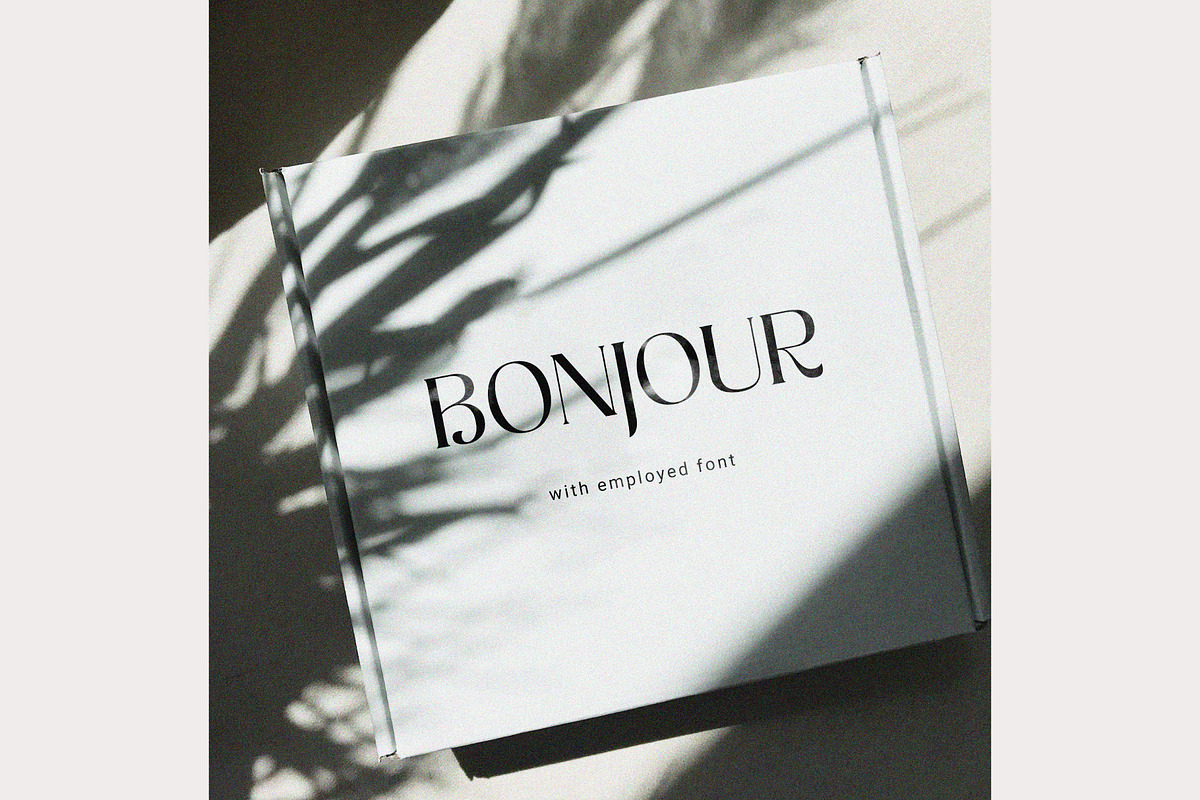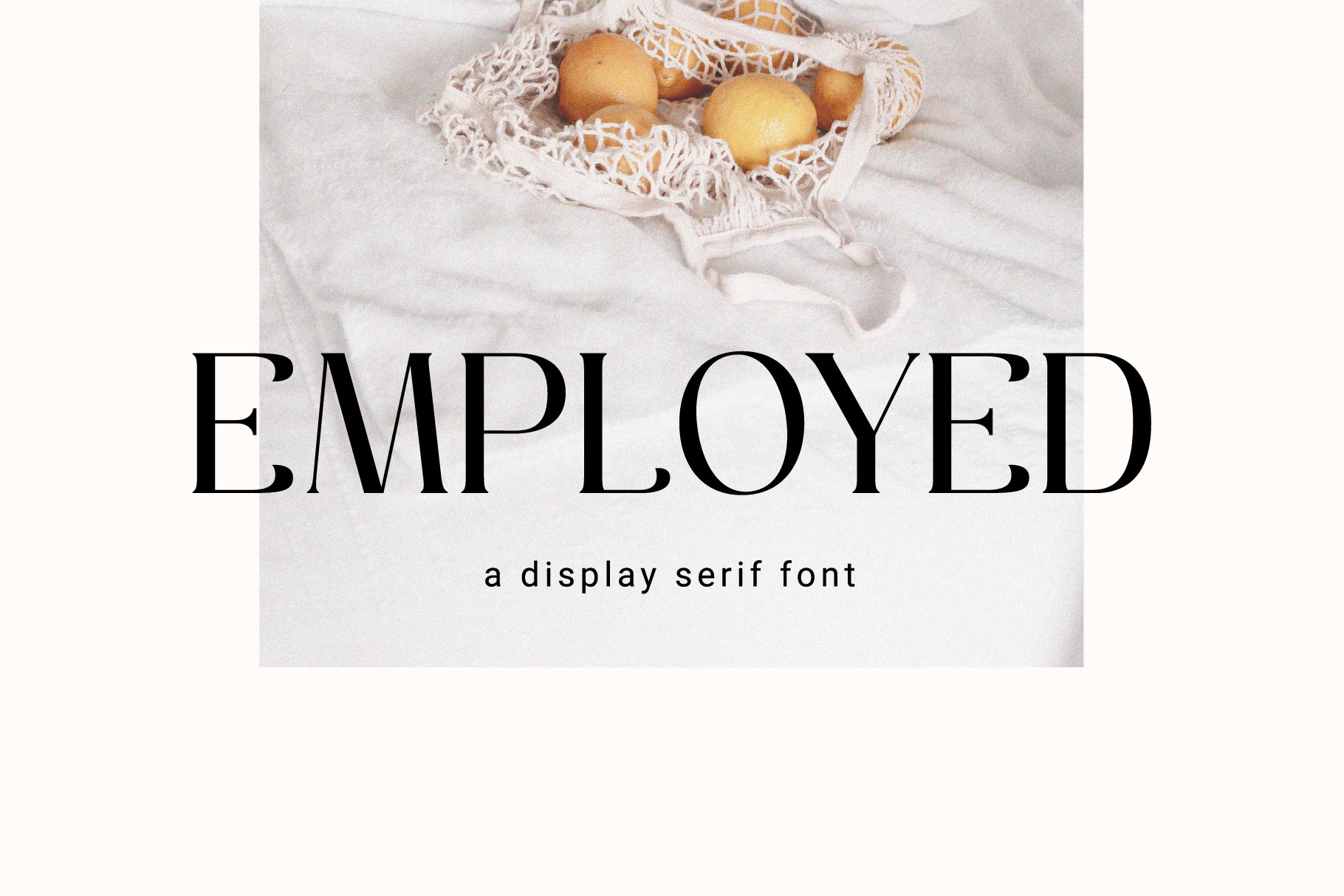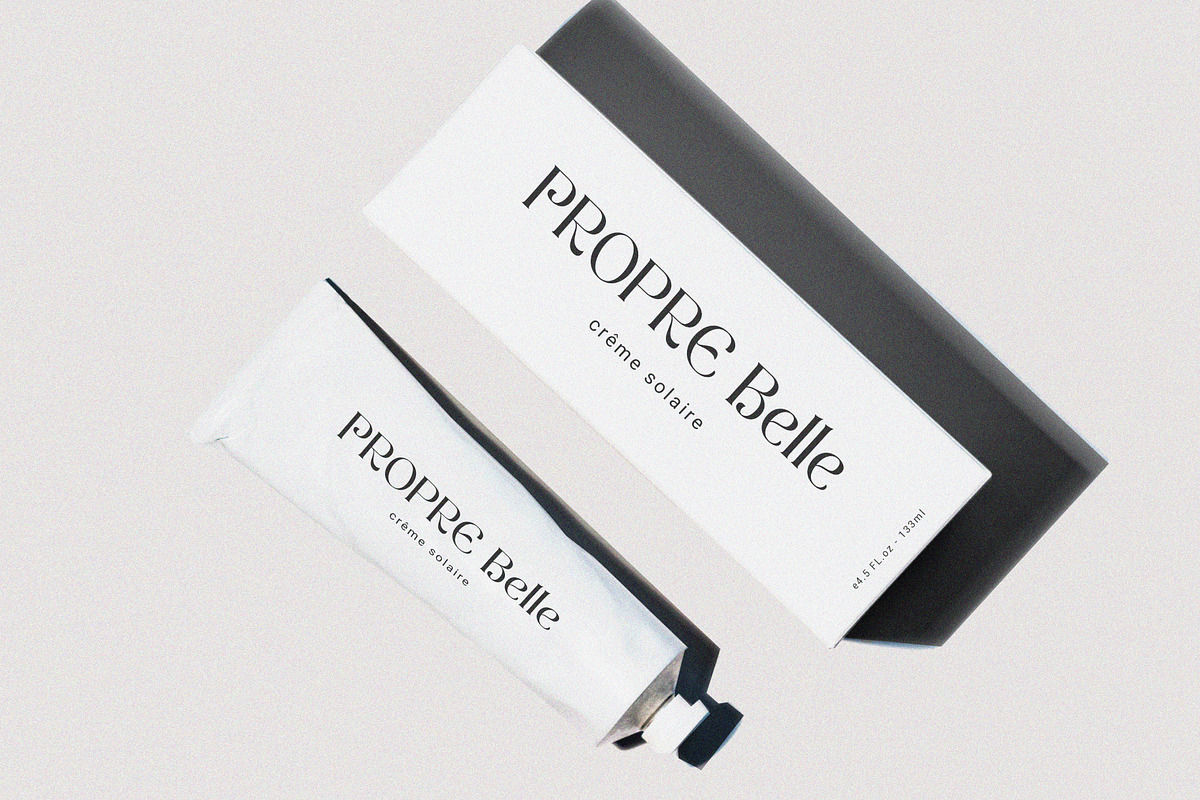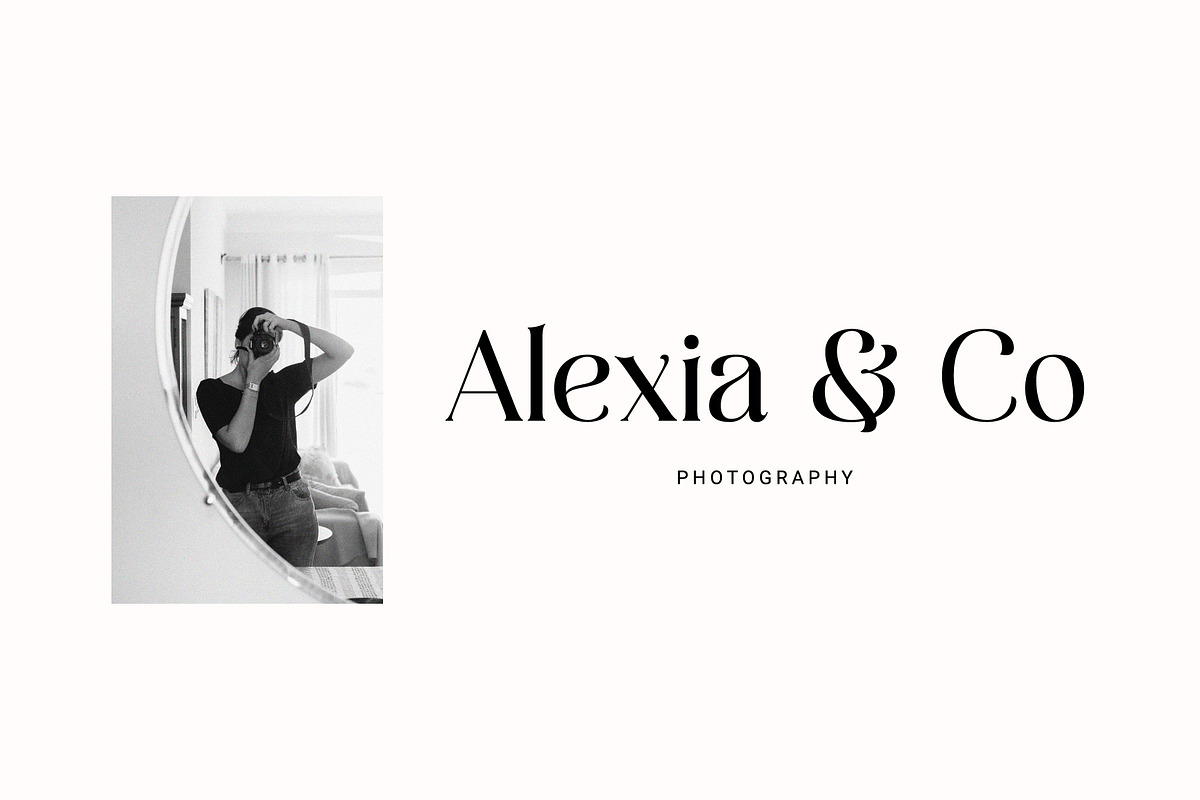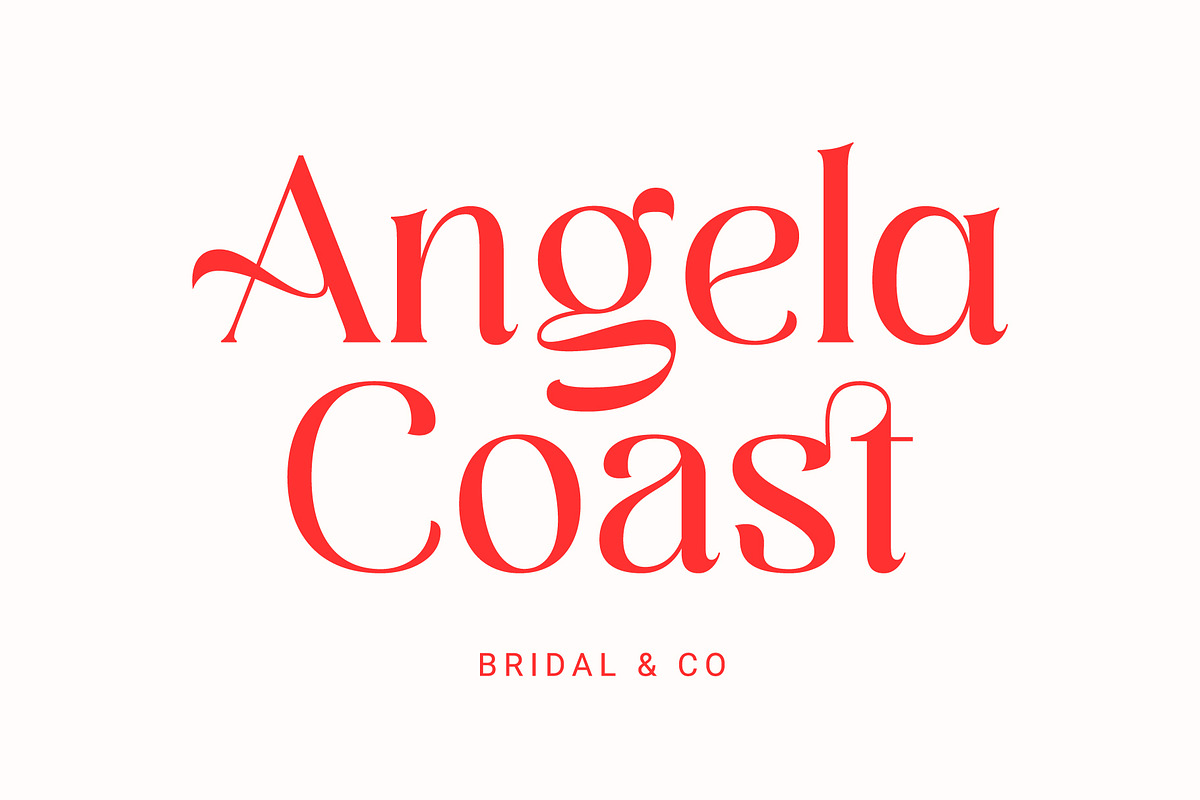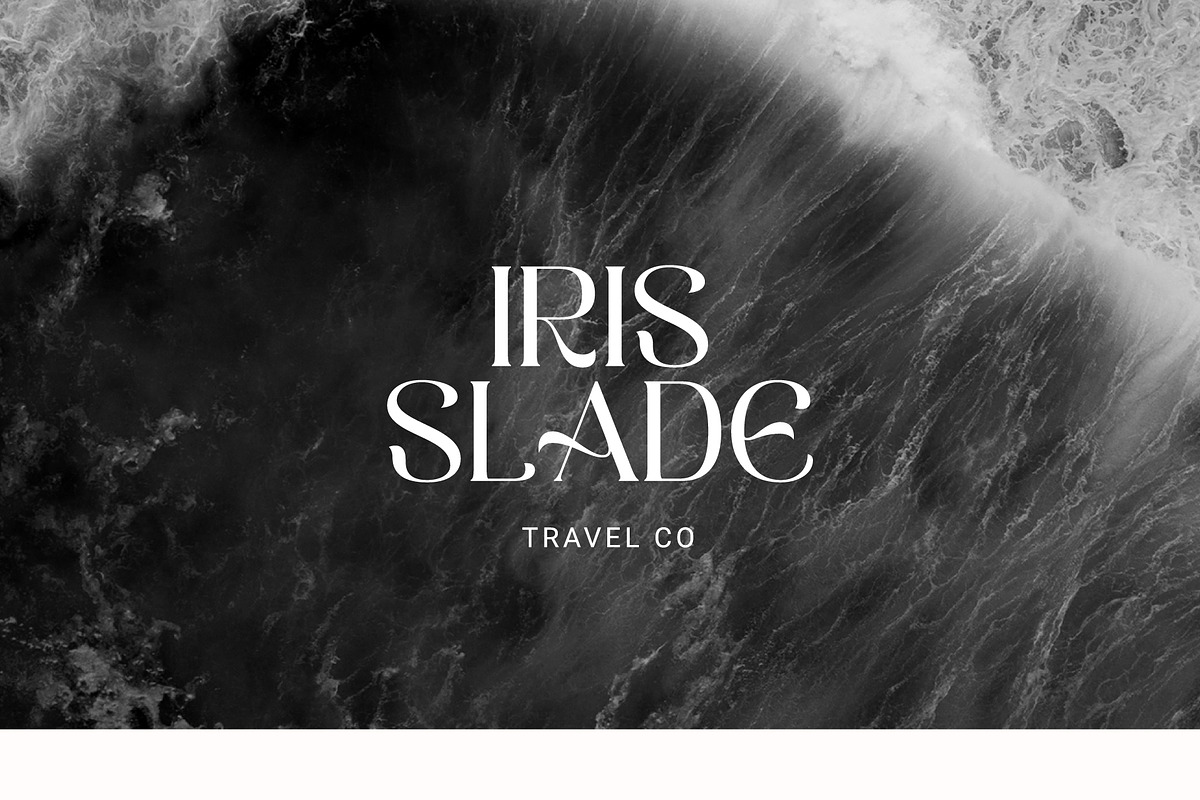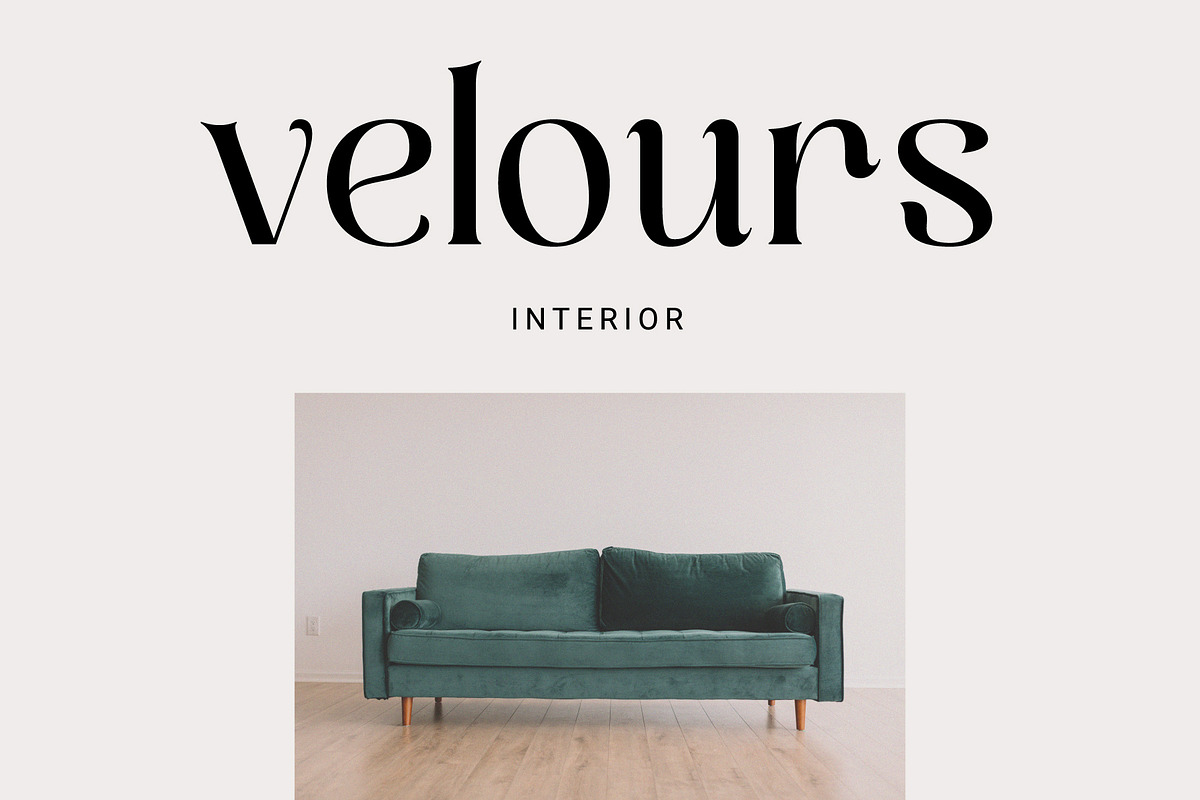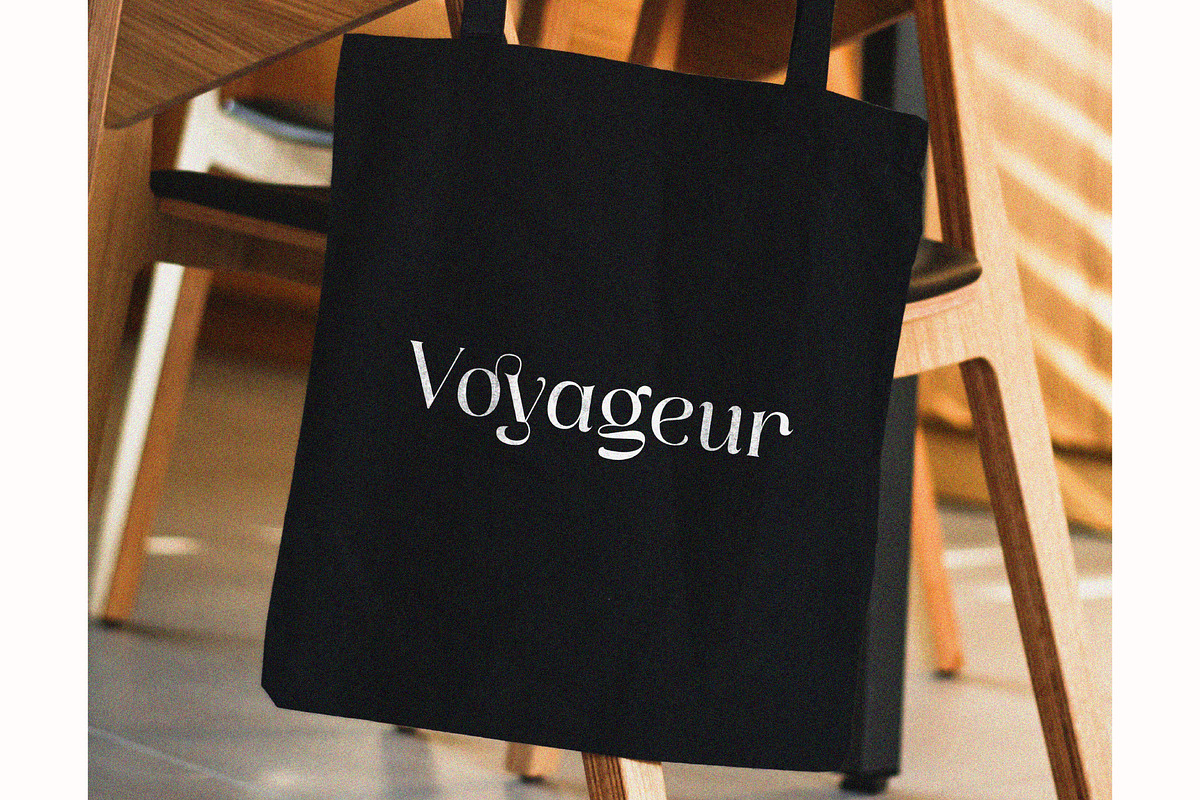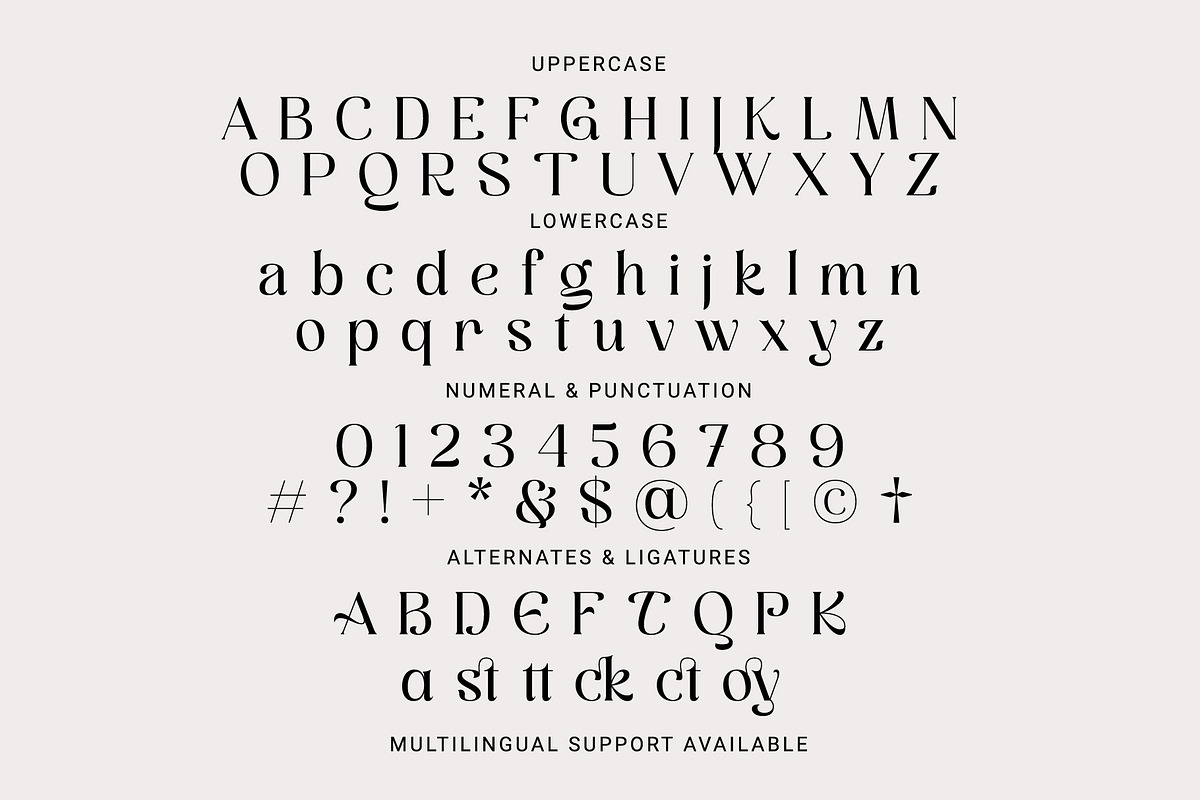
Employed - A Display Serif Font
Presenting a new typeface. Say hi to the "EMPLOYED" font. A serif display font with a modern and classic style, perfect for you to use in your projects such as branding, logos or social media posts.
A clean and eye-catching typeface is expected to make your project more impressive.
- Features: Uppercase, Lowercase, Numeral, Punctuation, Multilingual, Ligatures, Alternates & PUA Encoded.